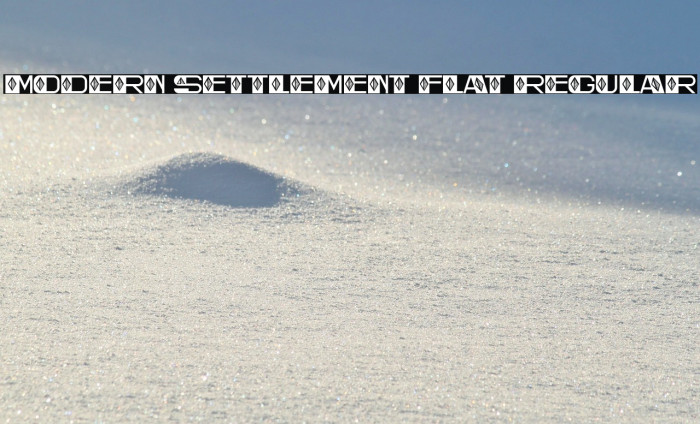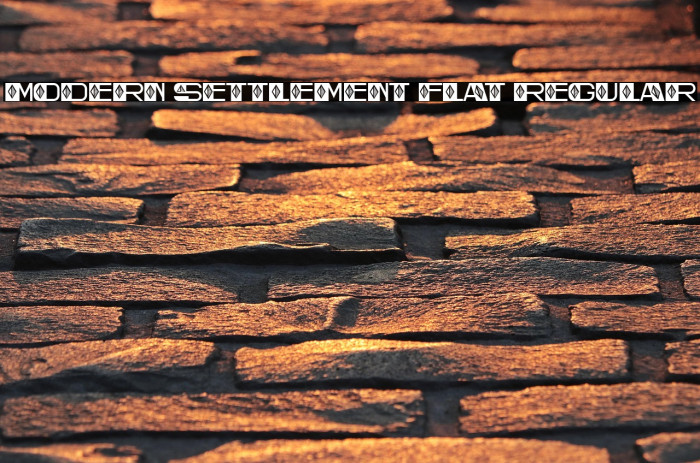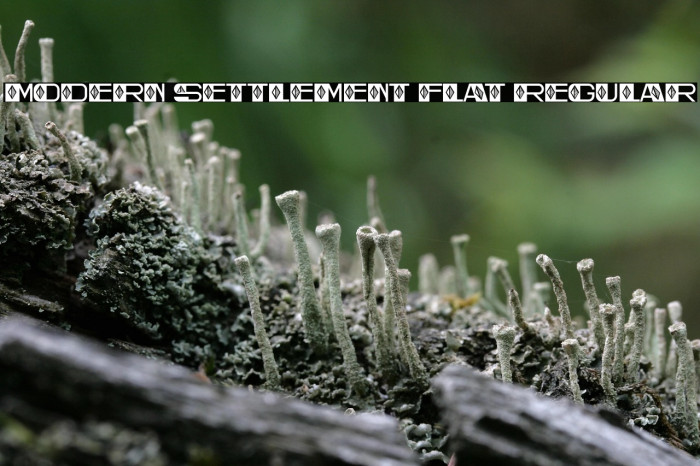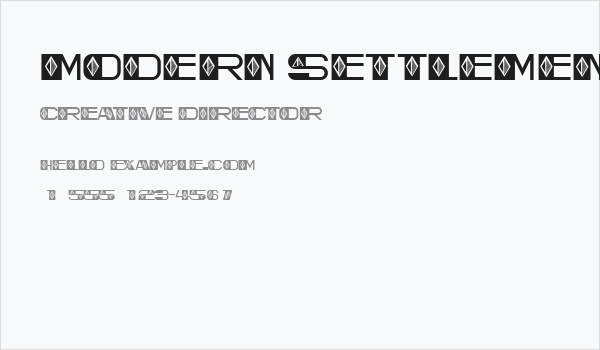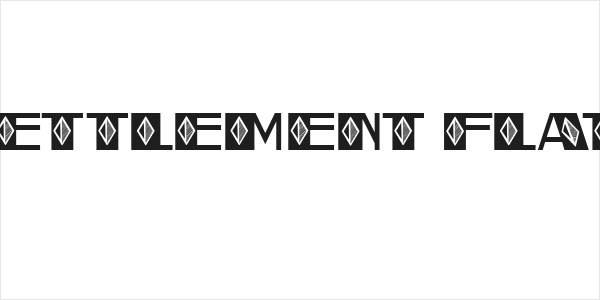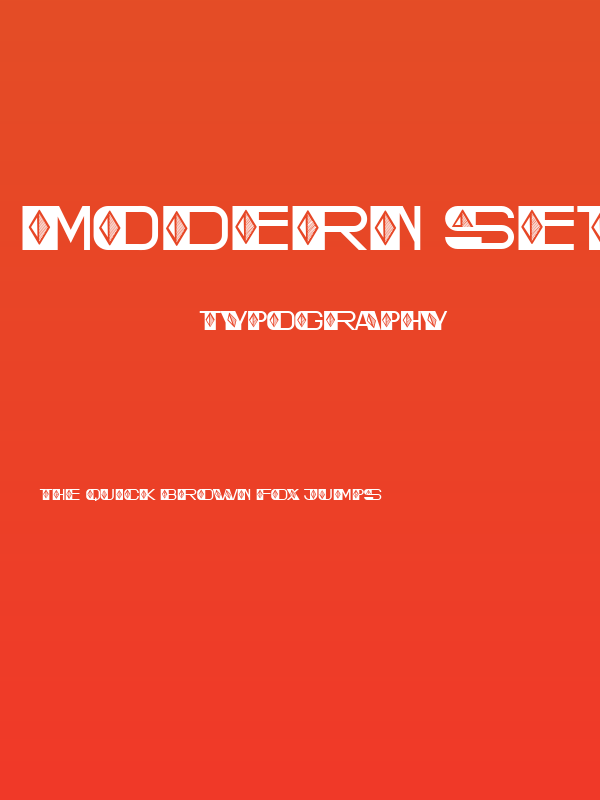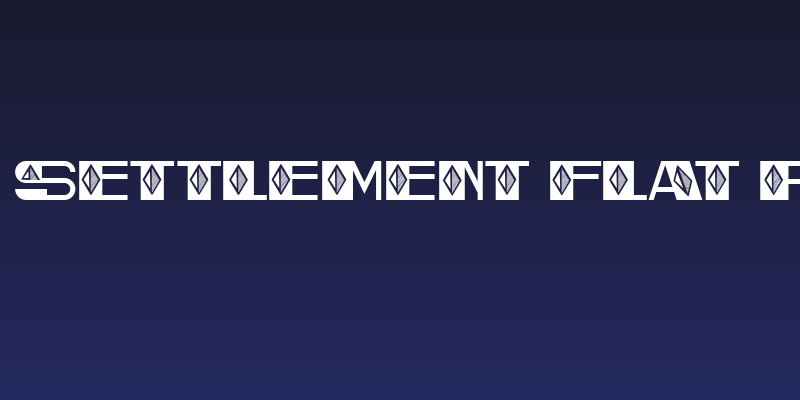
Modern Settlement Flat Regular Font
Modern Settlement Flat Regular Description
This font features a bold and striking design with geometric elements embedded within each character. The uppercase letters are stylized with diamond-shaped patterns, creating a unique and decorative appearance. The numbers and special characters follow the same theme, maintaining consistency across the font. The overall look is modern and artistic, making it suitable for projects that require a strong visual impact. The characters are evenly spaced, ensuring readability while maintaining the decorative style.
| Proposed Projects | Ideal for branding, posters, album covers, and any design work that requires a bold, artistic touch. |